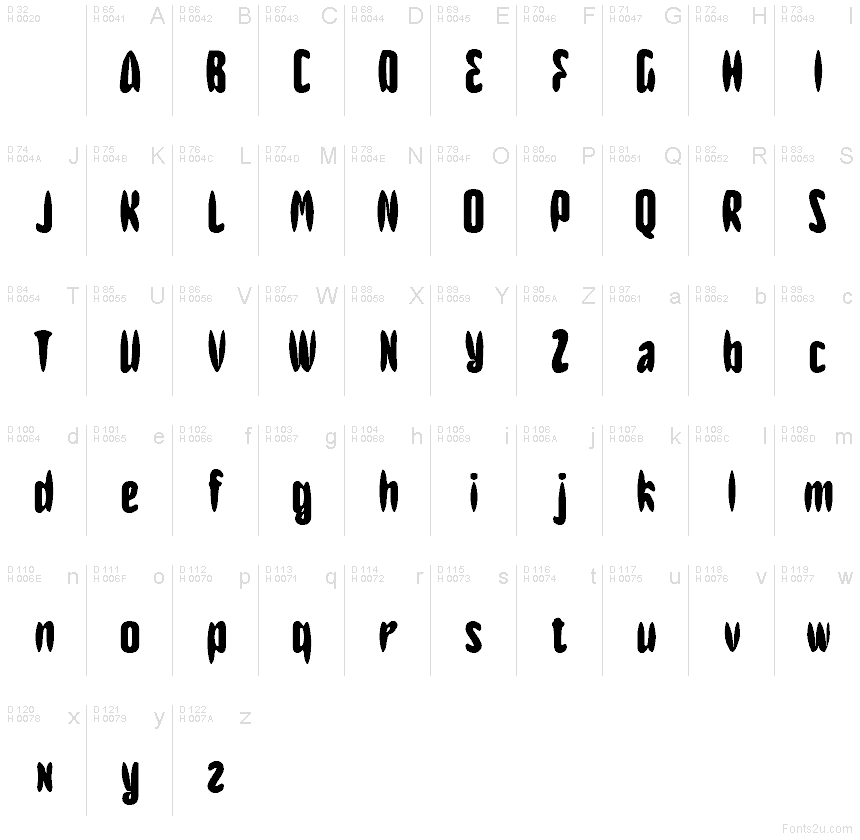
CSMedoraDrawn-Regular Demo
CS Medora Drawn font by Craft Supply Co. is a free bold hand-drawn display font. Built into the CS Medora family, it stands out with husky, brushy strokes and soft, scooped edges that feel inked rather than engineered. The forms swell and taper with a lively wobble, creating chunky silhouettes that stay legible while looking delightfully unruly.
Using CS Medora Drawn, headlines jump off the page—great for posters, indie brands, craft packaging, festival flyers, kids’ book covers, and café menus. The irregular rhythm adds warmth and personality without collapsing into chaos, so short lines and big sizes sing. Pair this free font with the straighter CS Medora cut for captions, or a clean geometric sans to let the inky texture lead.
CS Medora Drawn Demo